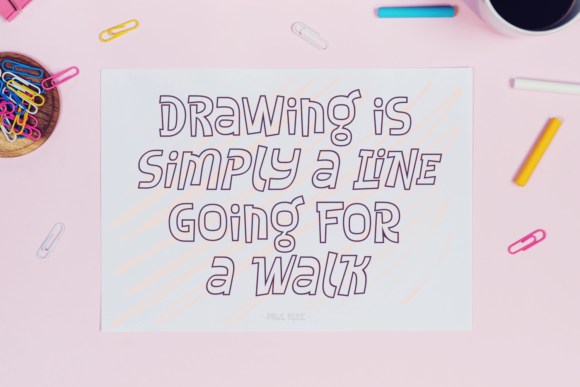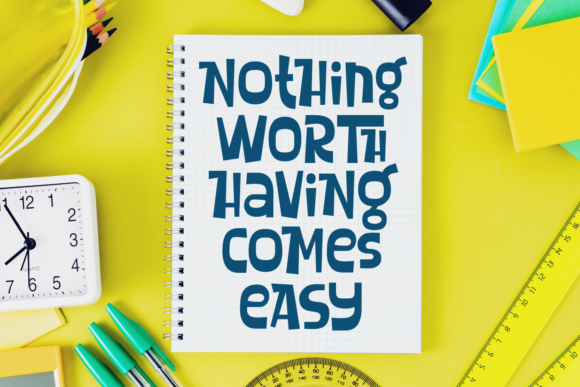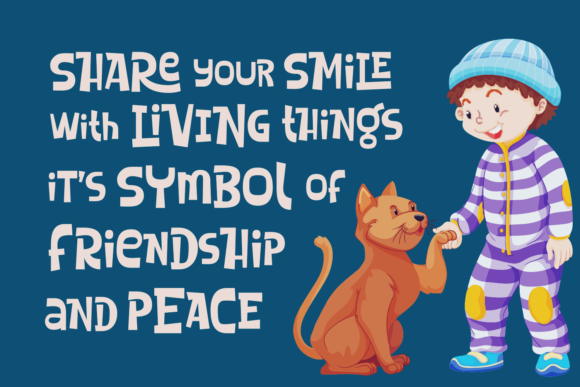
Introduction to Sheroo Font
Have you ever found yourself staring at a blank canvas, desperately searching for the perfect font to bring your creative project to life? We’ve all been there. The blank page stares back at you, taunting you with its emptiness. But what if I told you there’s a font that can turn any ordinary design into an extraordinary one? Enter the Sheroo Font, a high-quality, display font that’s sure to elevate your design game.
This fun and playful font is a game-changer for designers. With its transparent background and versatile design, it’s the perfect addition to any creative project. Whether you’re working on a graphic design, a logo, or a social media post, the Sheroo Font is sure to make it stand out. And the best part? It’s available for free download, making it an invaluable resource for designers of all levels.
Key Features of Sheroo Font
- High-quality design resource ideal for creative projects requiring a modern and elegant touch.
- Transparent background, allowing for easy layering and composition in creative projects.
- Designed with precision and attention to detail, ensuring a crisp and clear appearance at resolutions up to 300 DPI.
- Unique characteristics: geometric shapes, clean lines, and a subtle flair of sophistication, making it perfect for a wide range of creative applications.
Honest Review: Sheroo Font
I recently stumbled upon the Sheroo Font while searching for a high-quality design resource for my creative project. I must say, I was impressed with what I found.
What works well is the font’s unique and modern design, making it perfect for a variety of creative applications. The transparent background is also a big plus, giving users more flexibility when working with the font.
- ✨ Unique and modern design
- ✨ Transparent background for flexibility
- ✨ High-quality design resource
Overall, I would say that the Sheroo Font is a solid choice for designers and creatives looking for a free design resource. While it may have some limitations, the font’s unique design and transparent background make it a valuable asset for any creative project.
Use the Sheroo Font in conjunction with a transparent background to create a seamless and modern design. Experiment with different font sizes, colors, and styles to achieve the desired effect.
Common Use Cases for Sheroo Font
The Sheroo Font is ideal for use in creative projects such as logos, branding, and marketing materials. Its versatility and high quality make it a great addition to any design project.